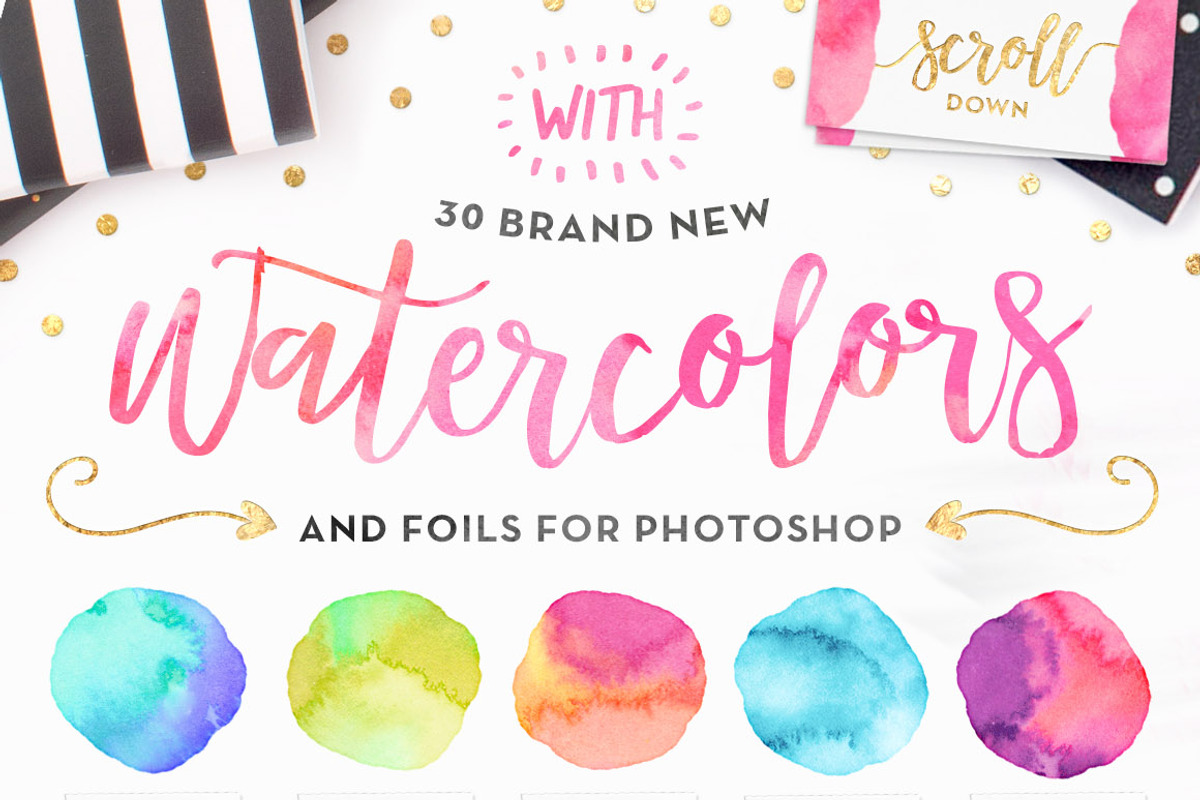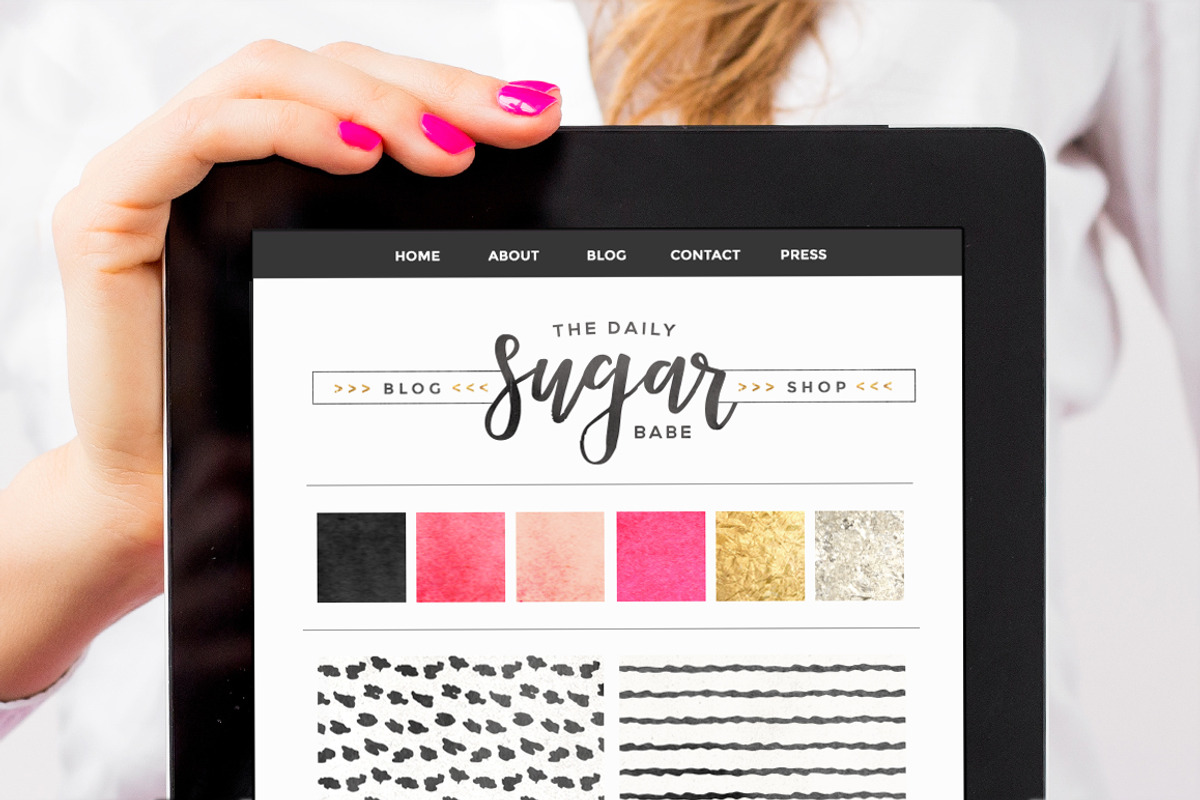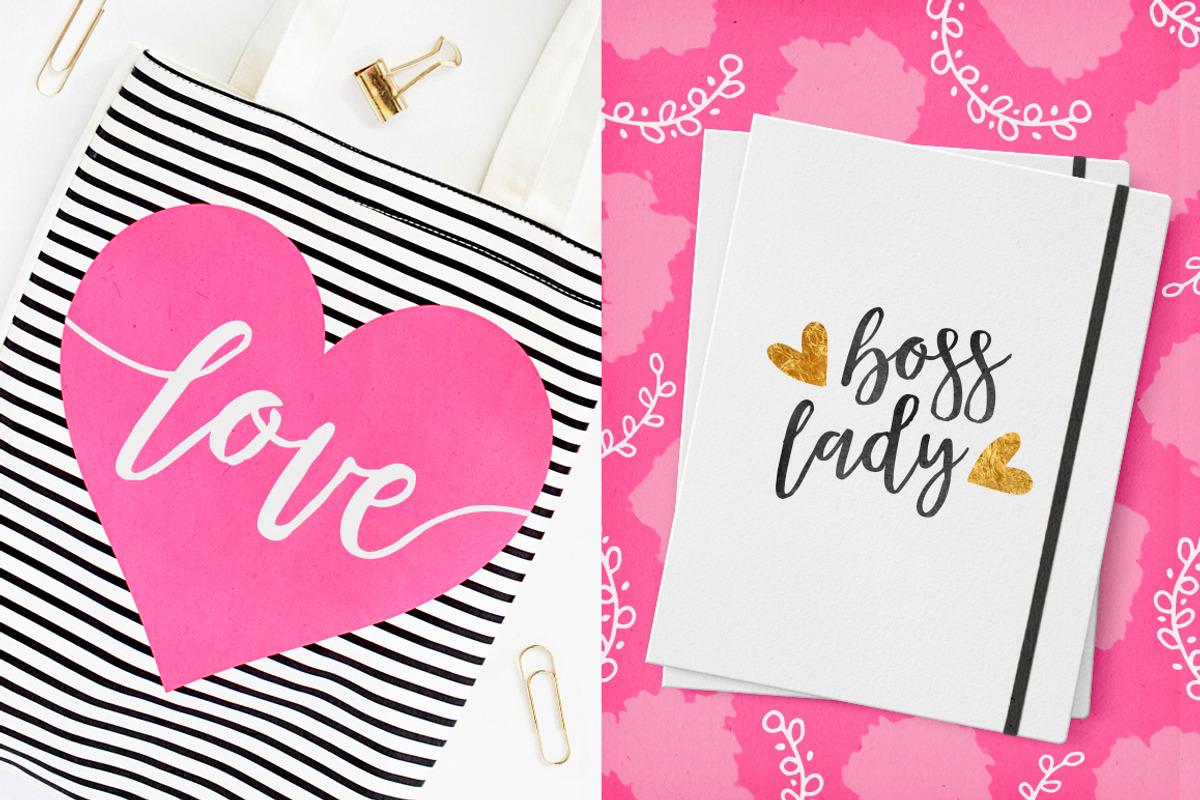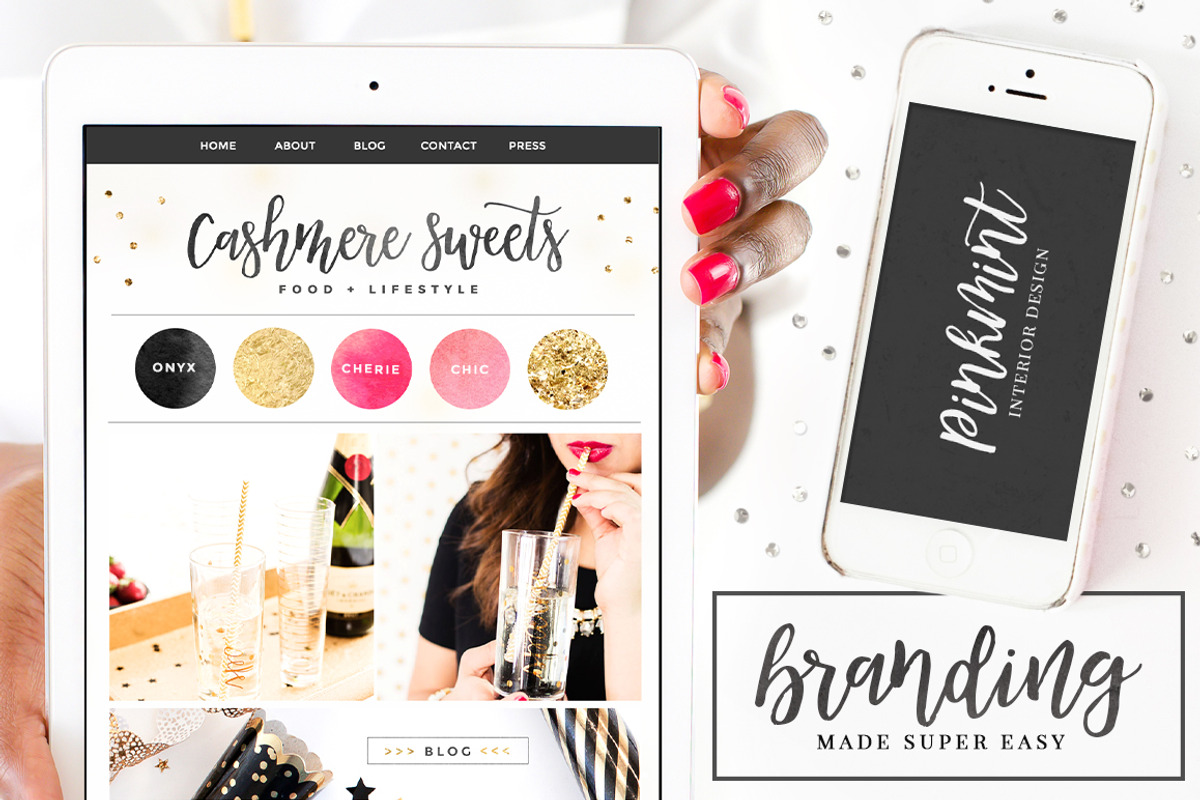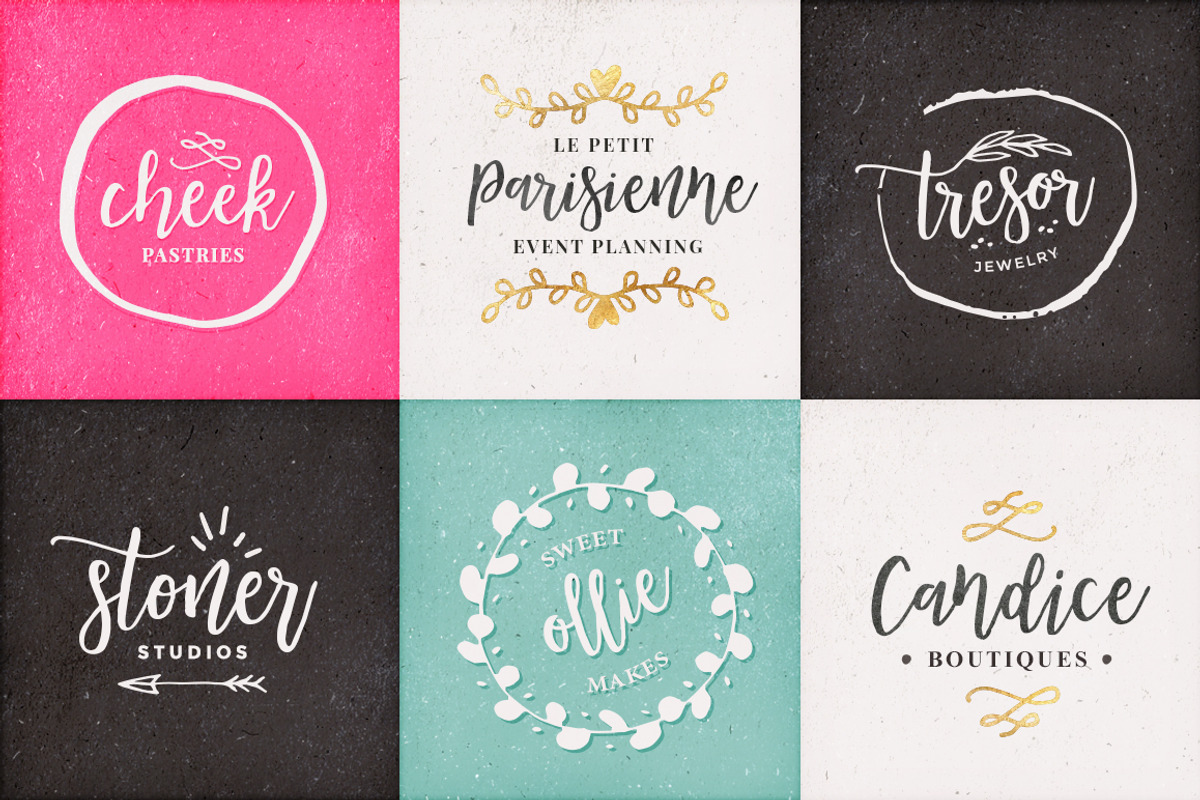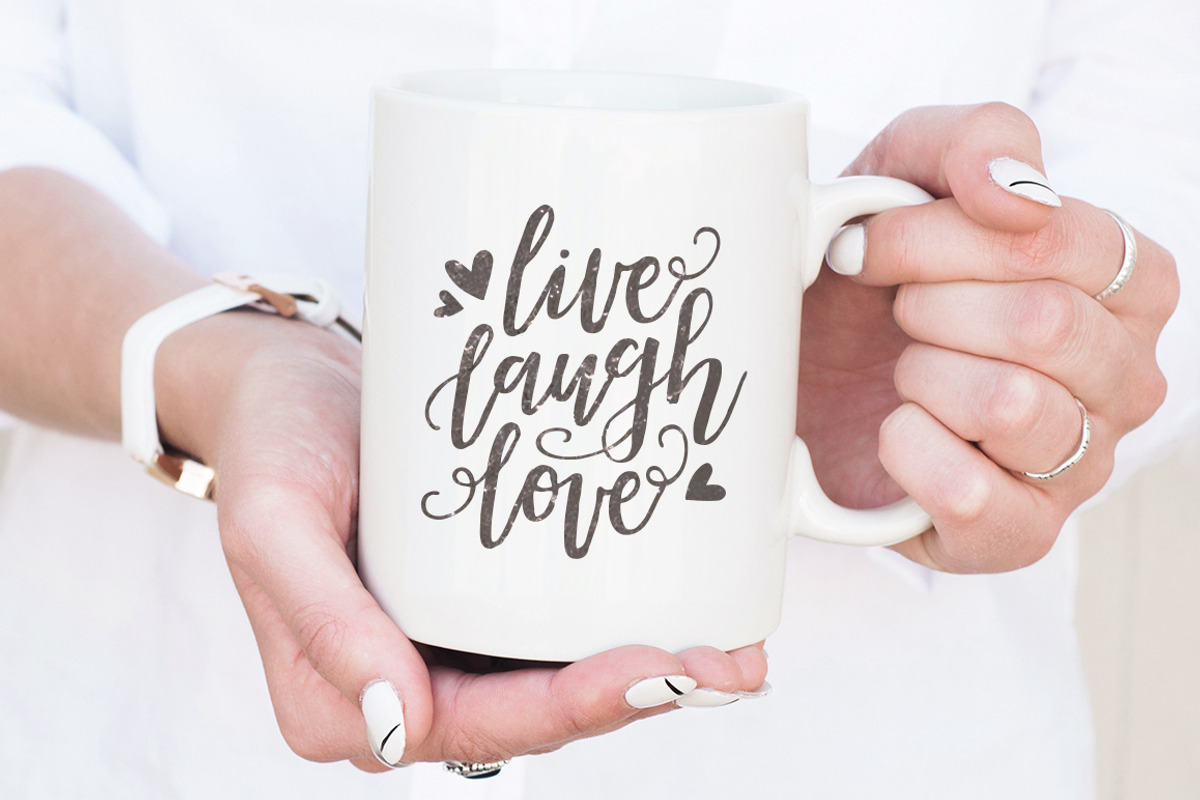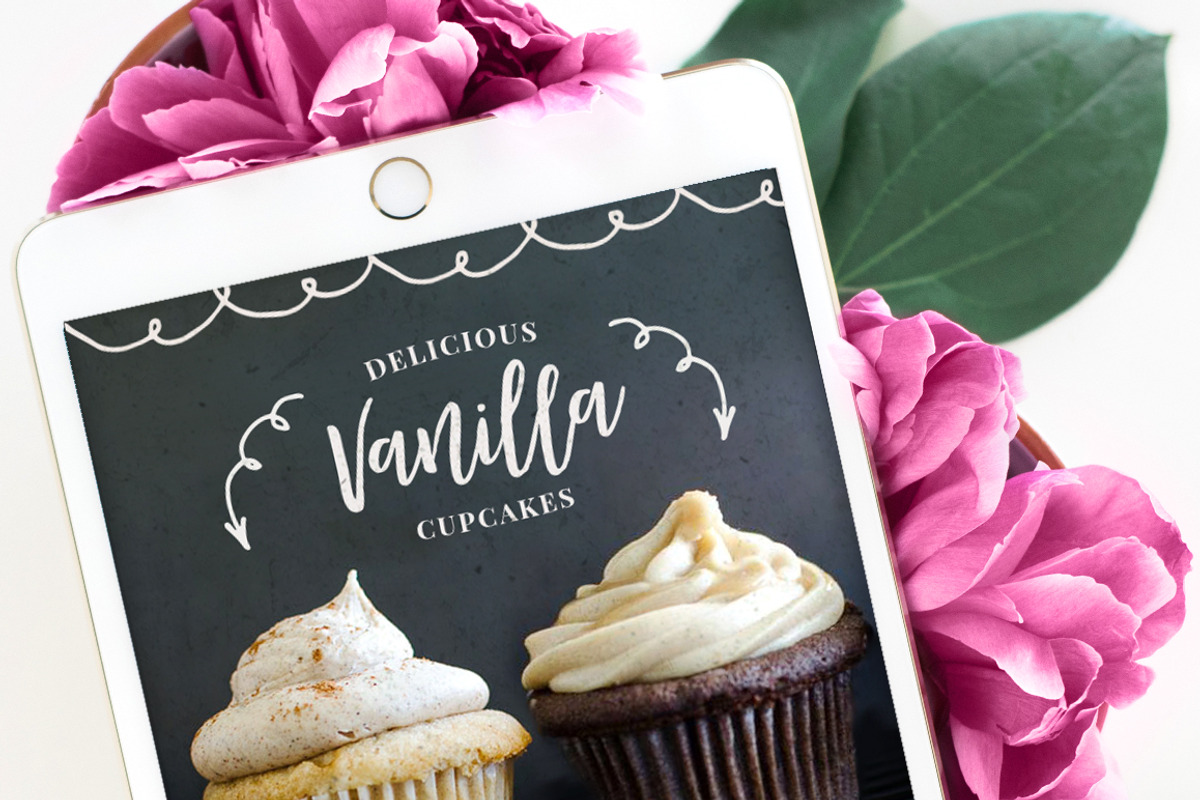
Mademoiselle Script Font + EXTRAS!
Mademoiselle Script Font + EXTRAS! by Pink Coffie is a font selected for branding, posters, packaging, typography.
- Aaand as always, I included lots of lovely extras to play with!
- :) I've also included a whole set of lowercase alternates, ligatures and as a sweet bonus, an all swash font to mix and match.
Why Mademoiselle Script Font + EXTRAS! is worth a look
Mademoiselle Script Font + EXTRAS! by Pink Coffie fits naturally into Branding, posters, packaging, typography.